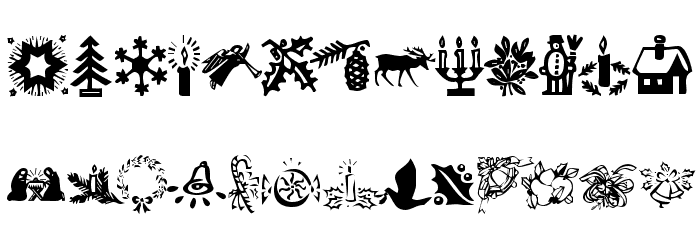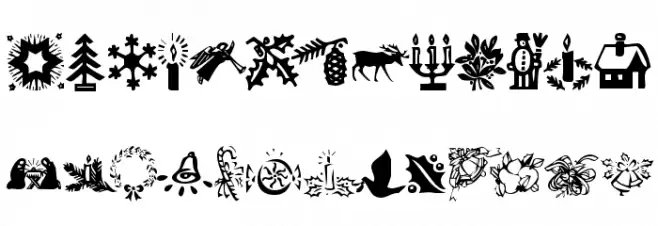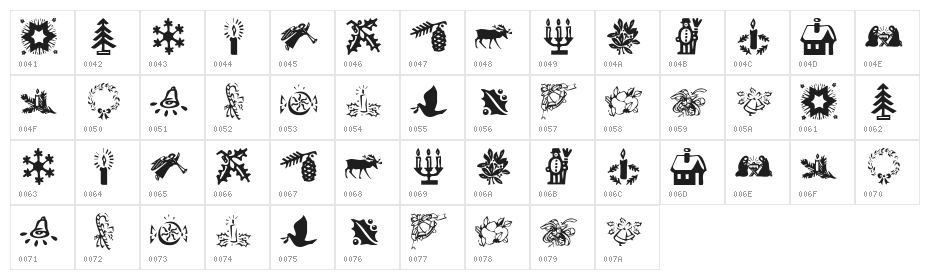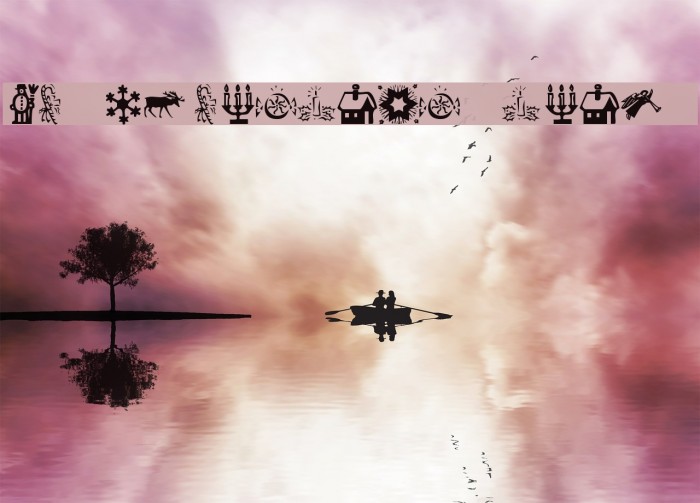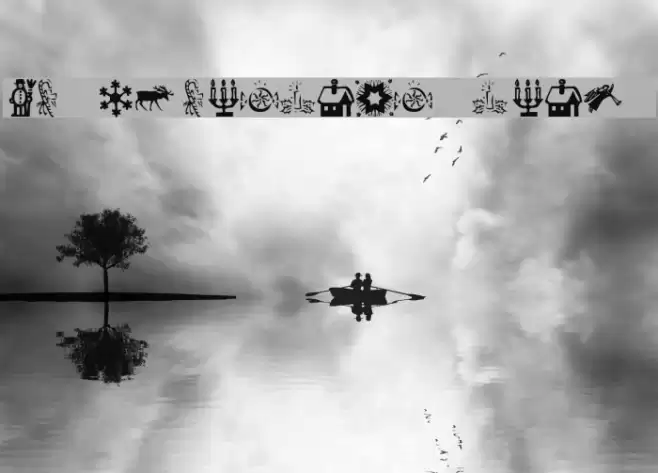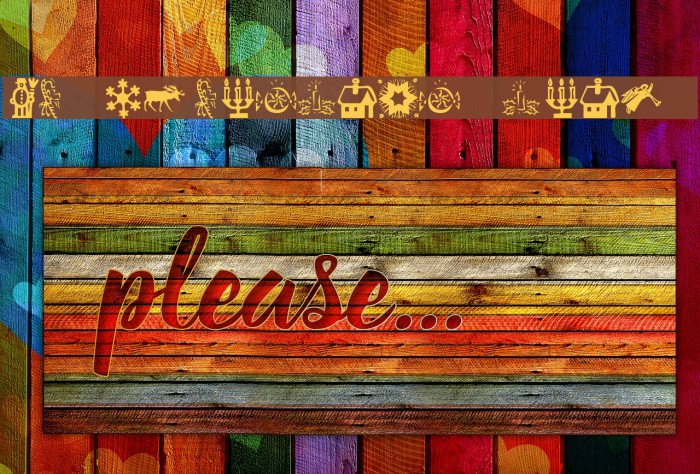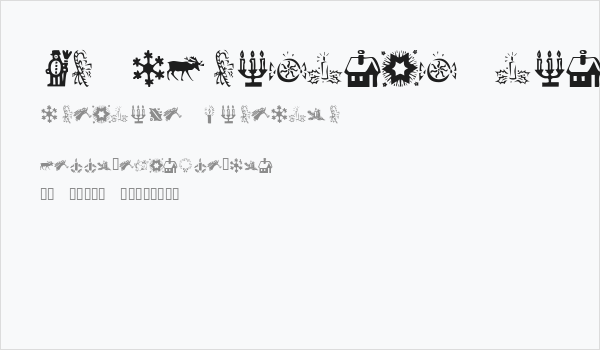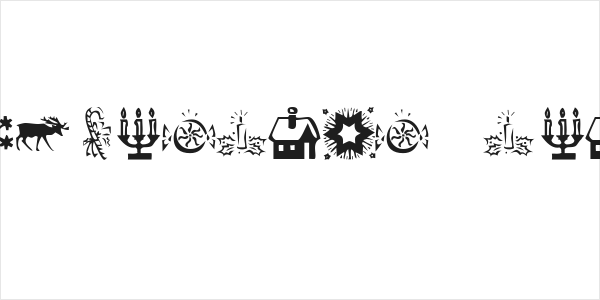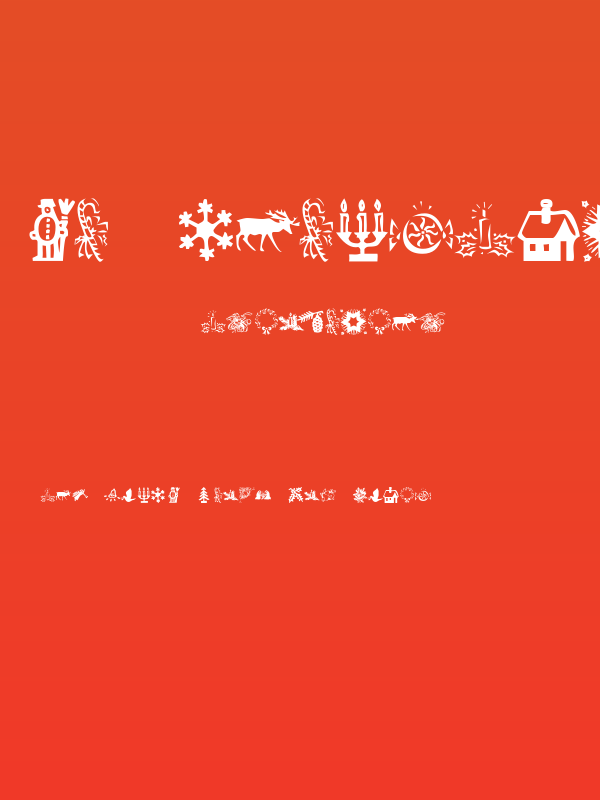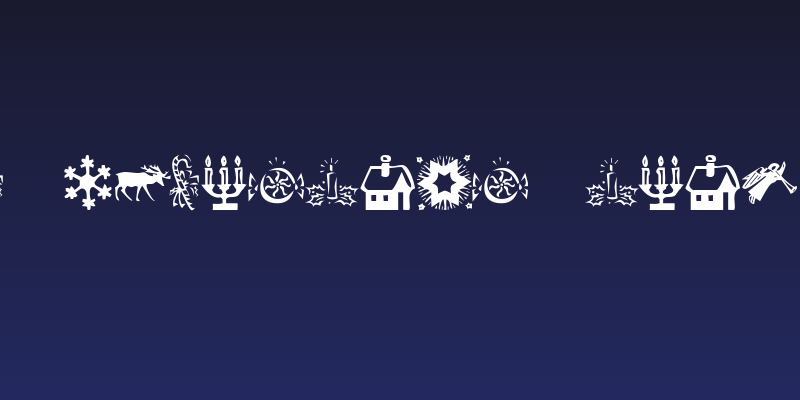
KR Christmas Time 2 Font
KR Christmas Time 2 Description
This decorative font is a festive collection of Christmas-themed icons and symbols, each character representing a unique holiday element. The design includes Christmas trees, snowflakes, candles, holly, reindeer, and other seasonal motifs, all intricately detailed to capture the essence of the holiday spirit. The characters are bold and visually striking, making them ideal for creating eye-catching designs. The overall style is playful and whimsical, perfect for adding a touch of holiday cheer to any project.
| Use Case | Logos, Headlines, Decorative elements |
| Proposed Projects | Ideal for holiday cards, festive invitations, seasonal decorations, and Christmas-themed crafts. |